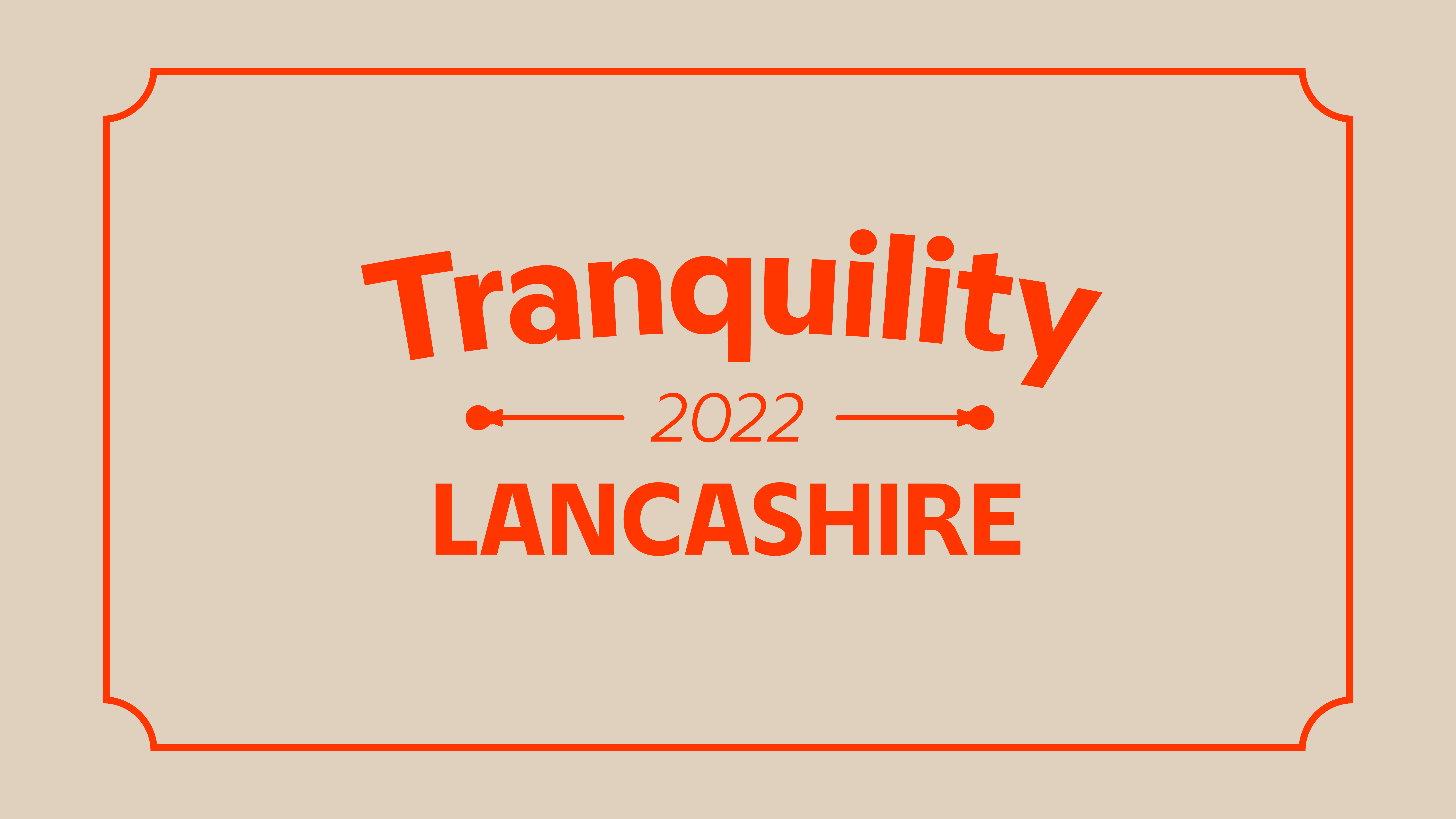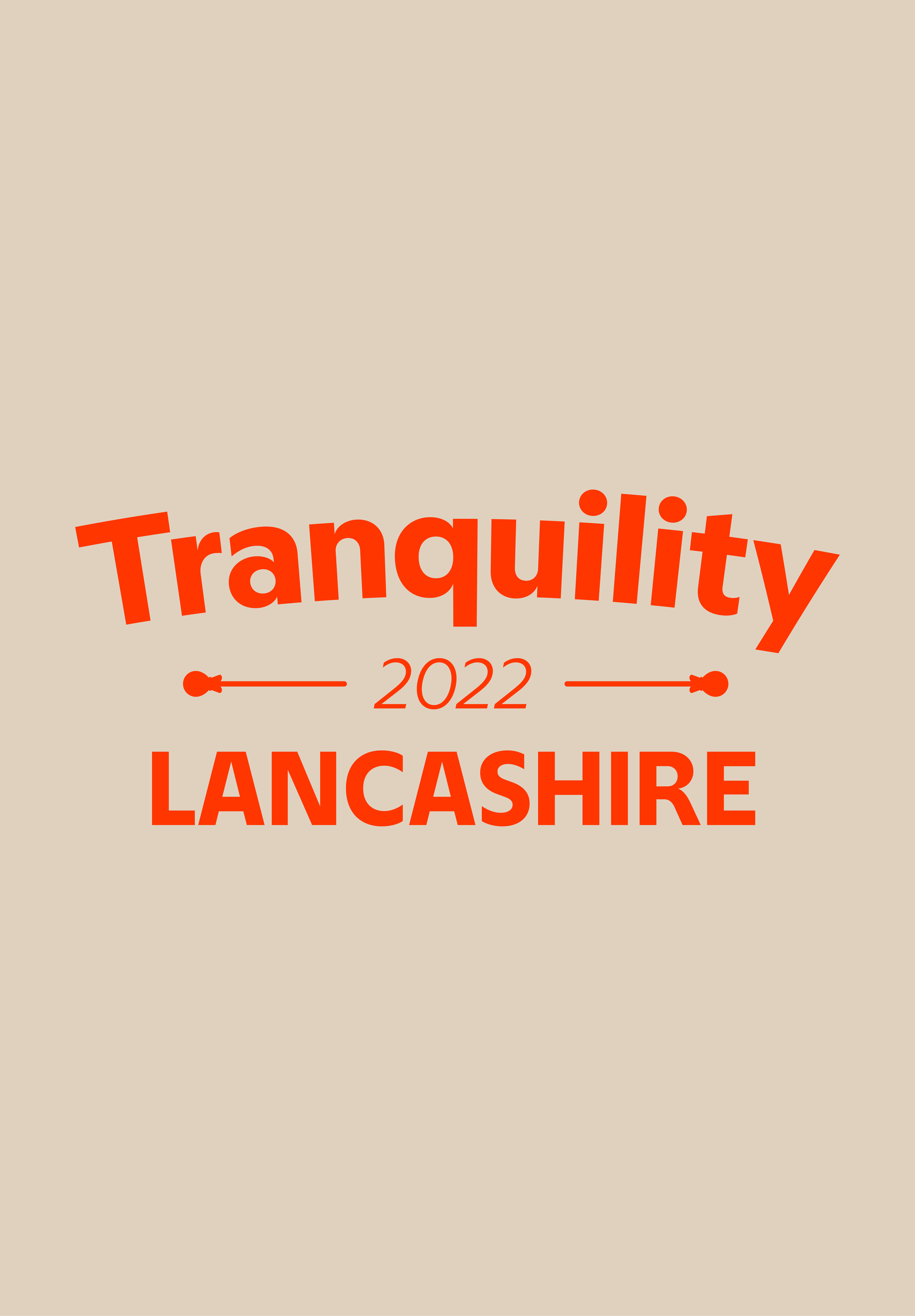
F37 Maulstick®
Brush up your designs with F37 Maulstick, a smooth, fluid font that pays subtle homage to the craft of sign writing.
A maulstick is a stick with a soft leather or padded head used by painters to support the hand holding the paintbrush.
Signwriters were employed to paint signs for a wide variety of purposes.
Traditional signwriters use methods closely related to those of their forebears in this craft and do not depend on technology — they are able to set out a sign with chalk and write it by eye in freehand. They do not rely on fonts and normally have their own individual lettering styles, yet also have the ability to render fonts closely to brand, as in architectural design briefs, for example.